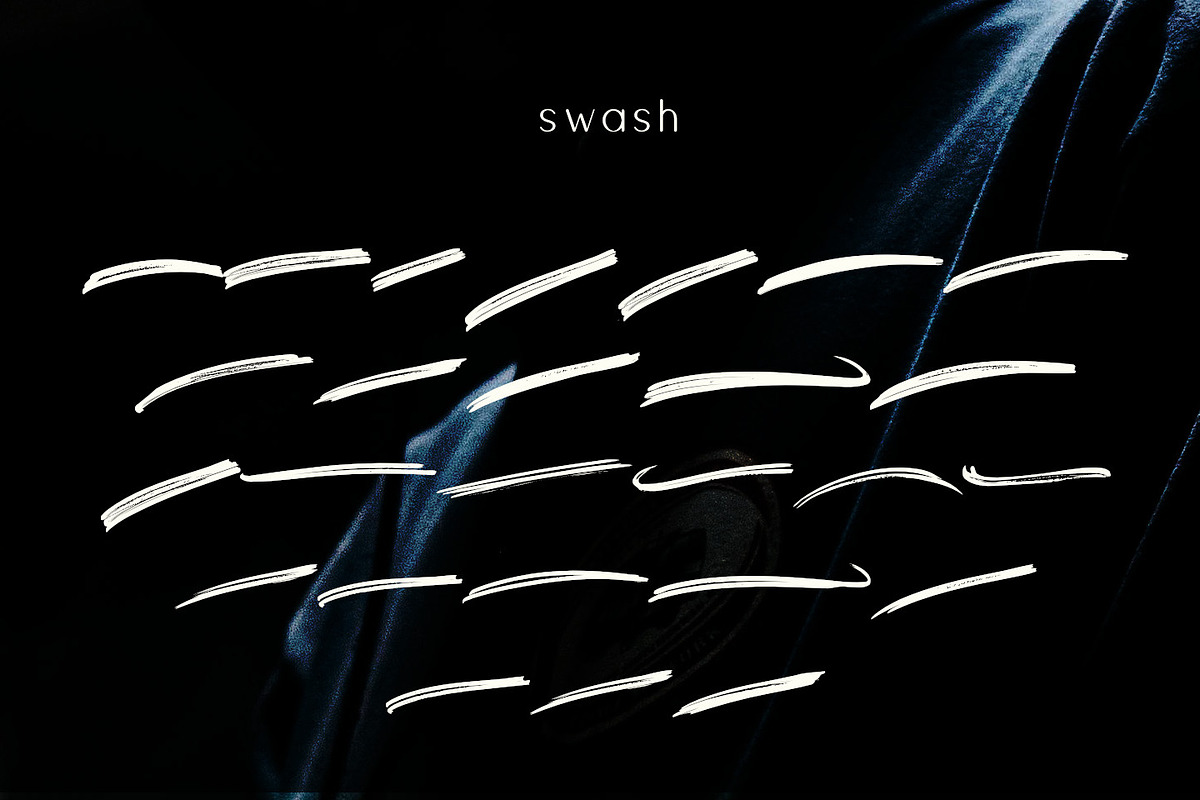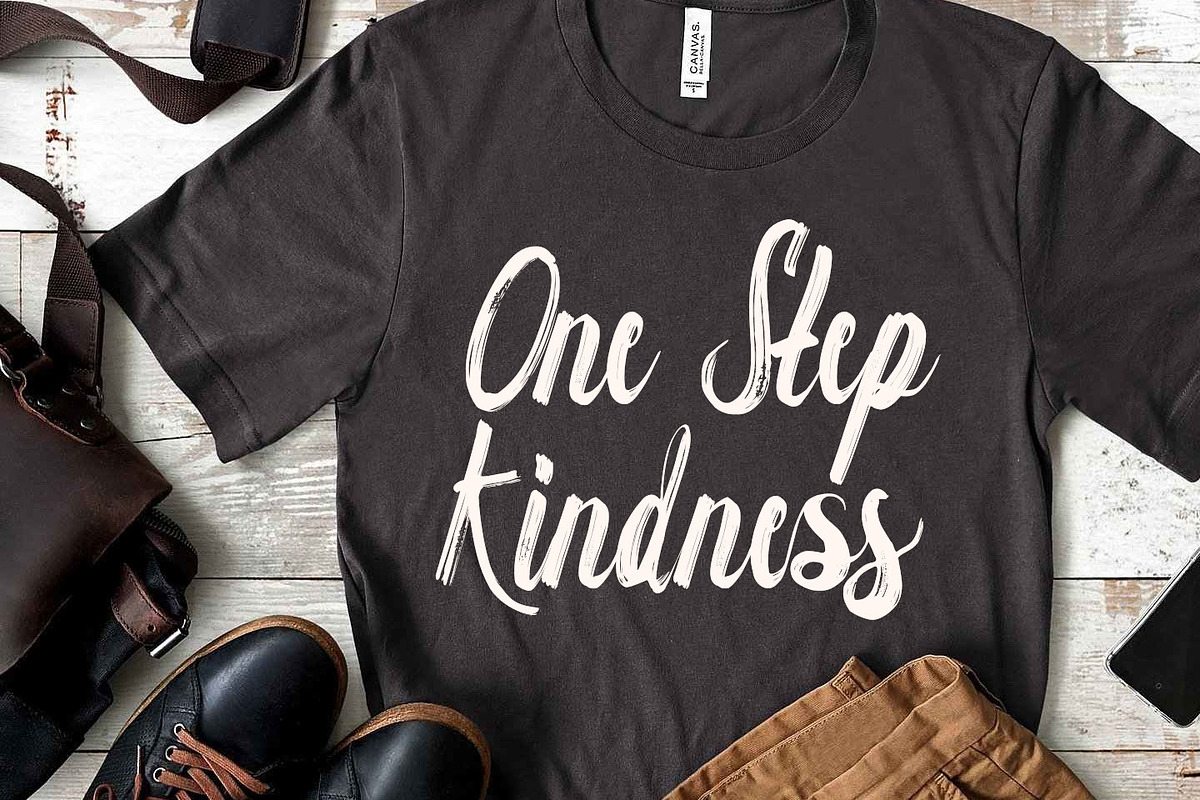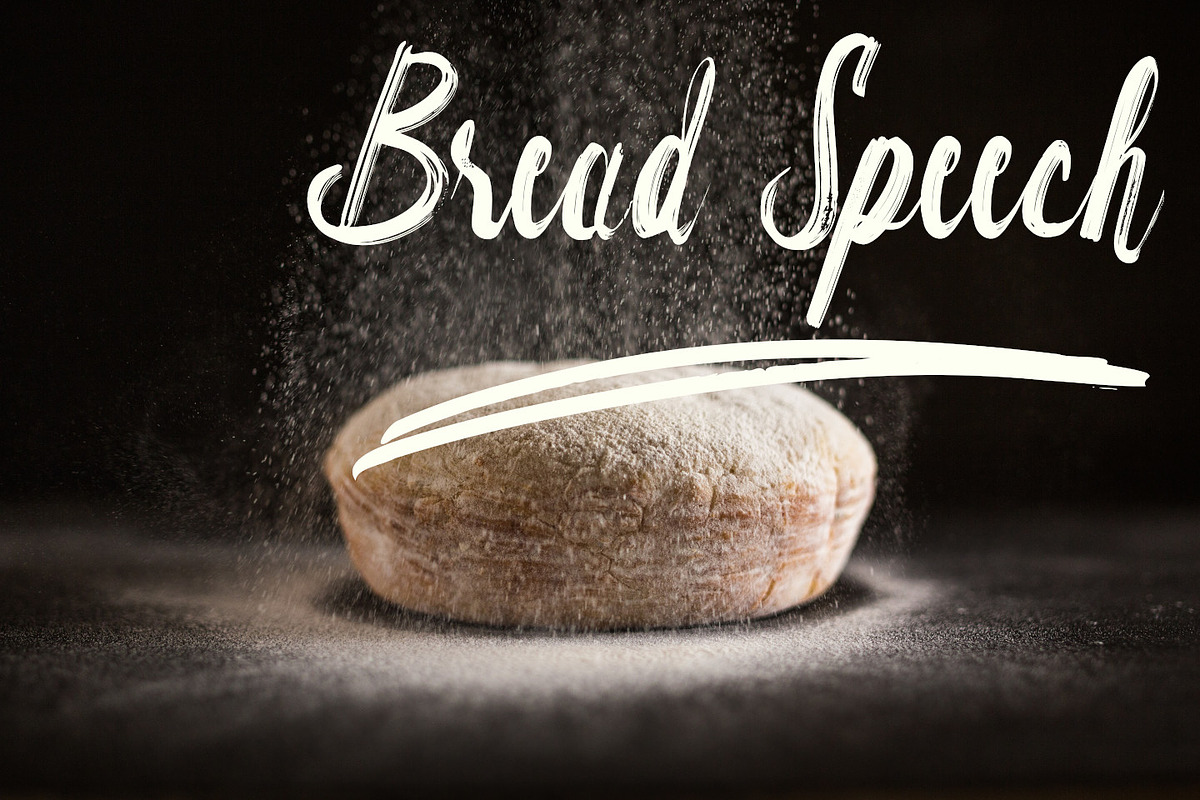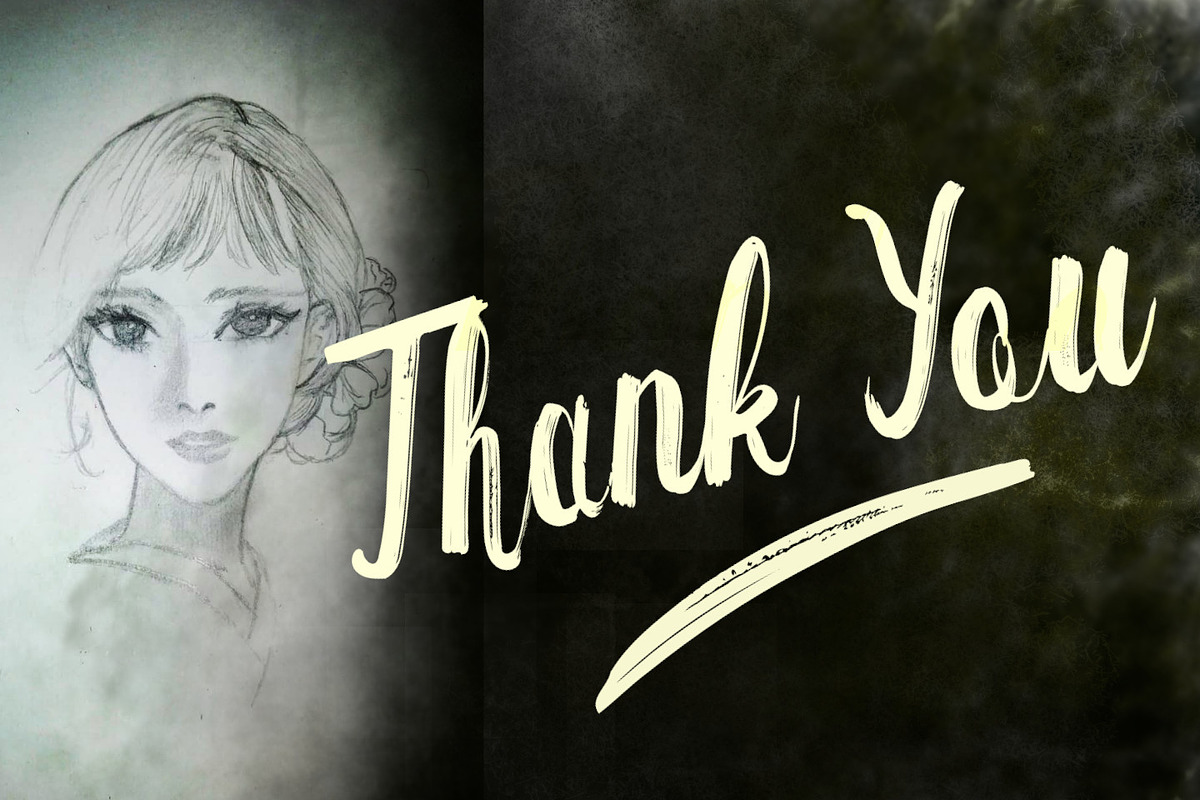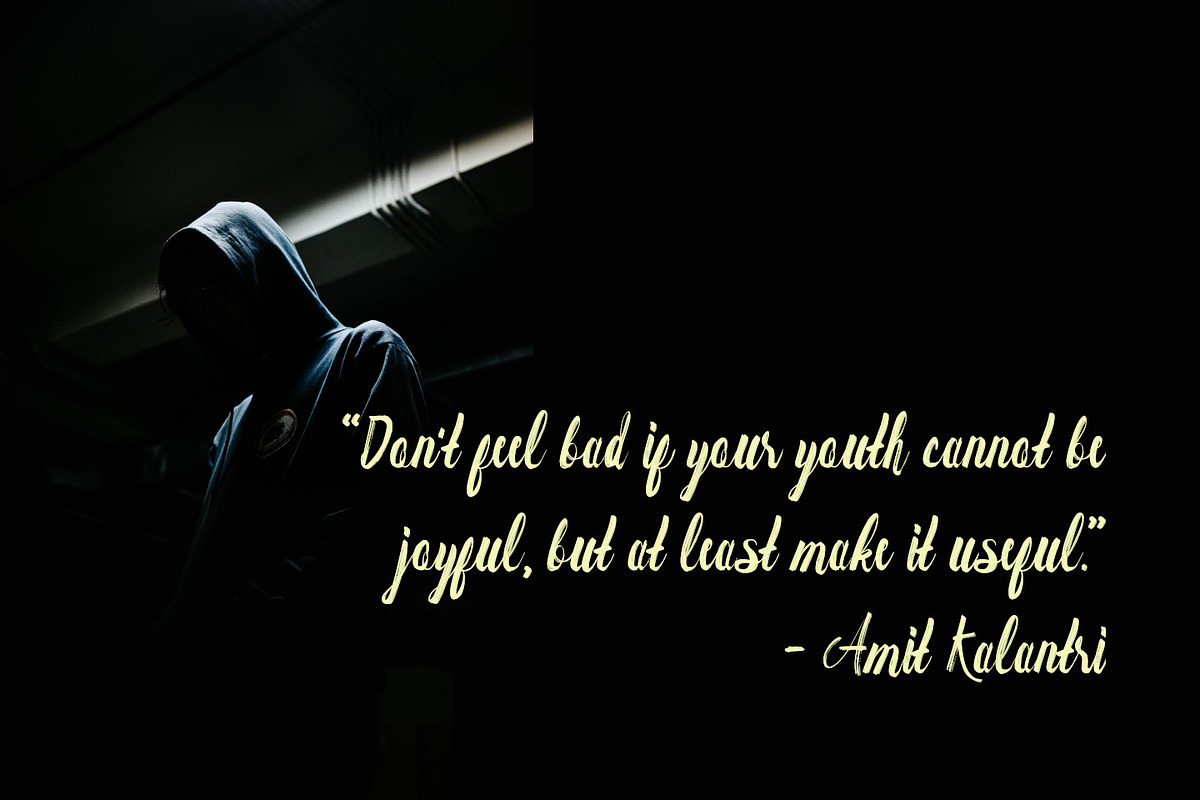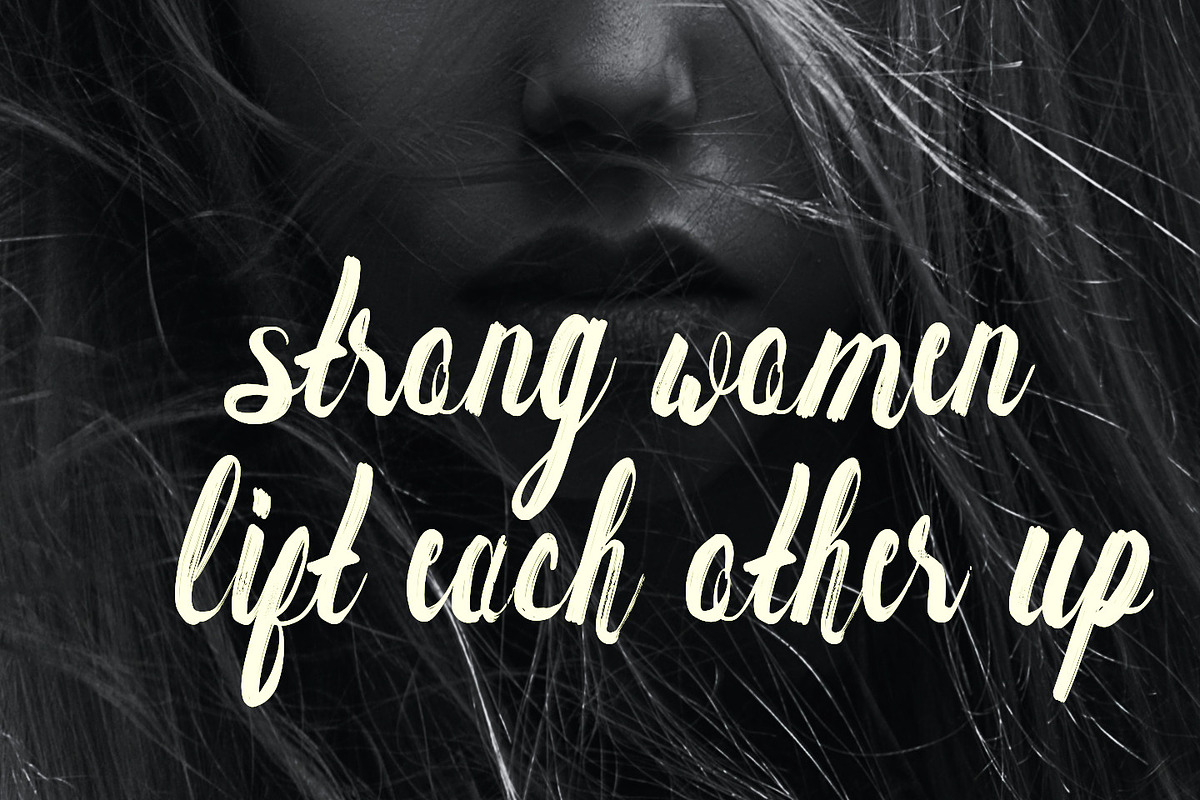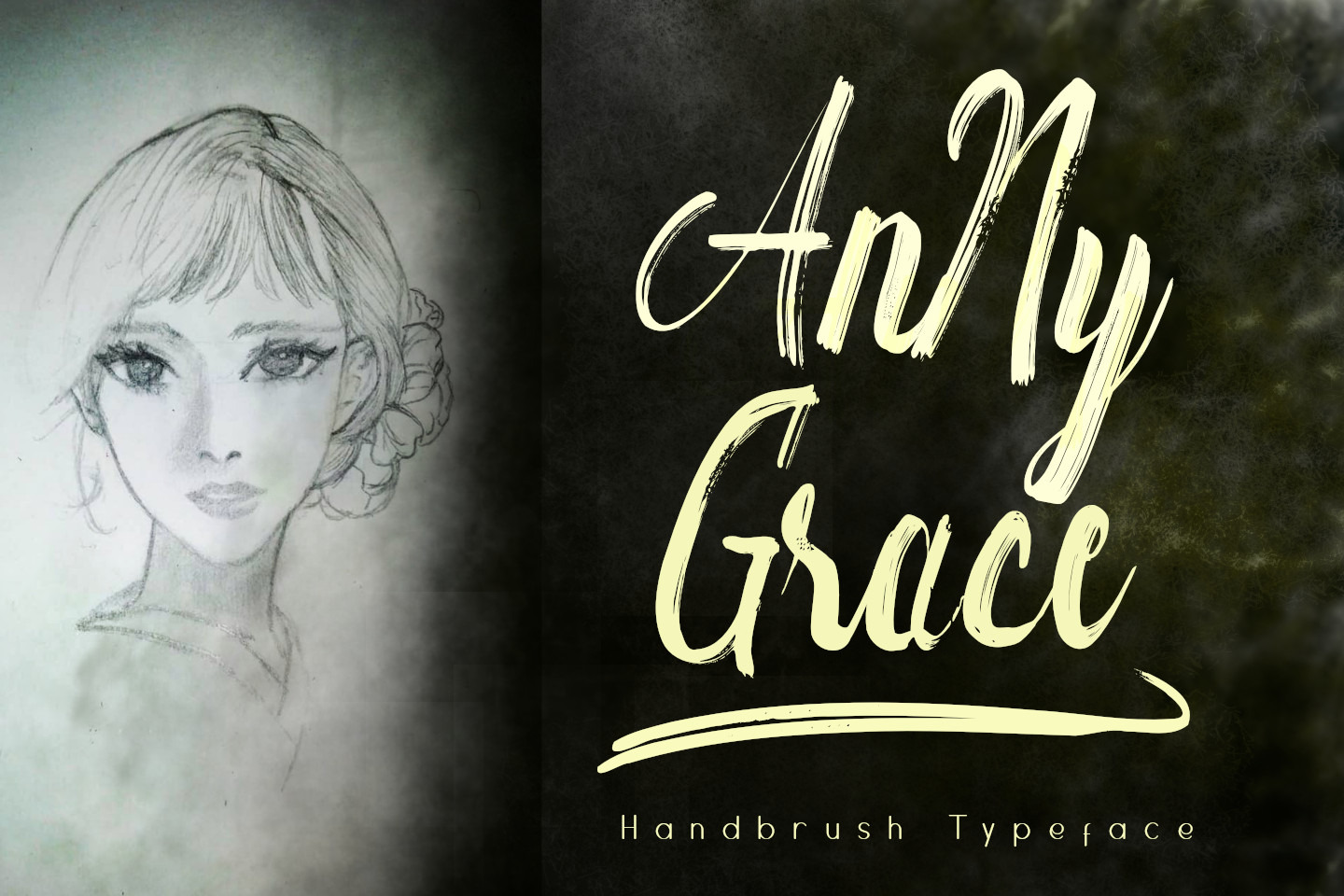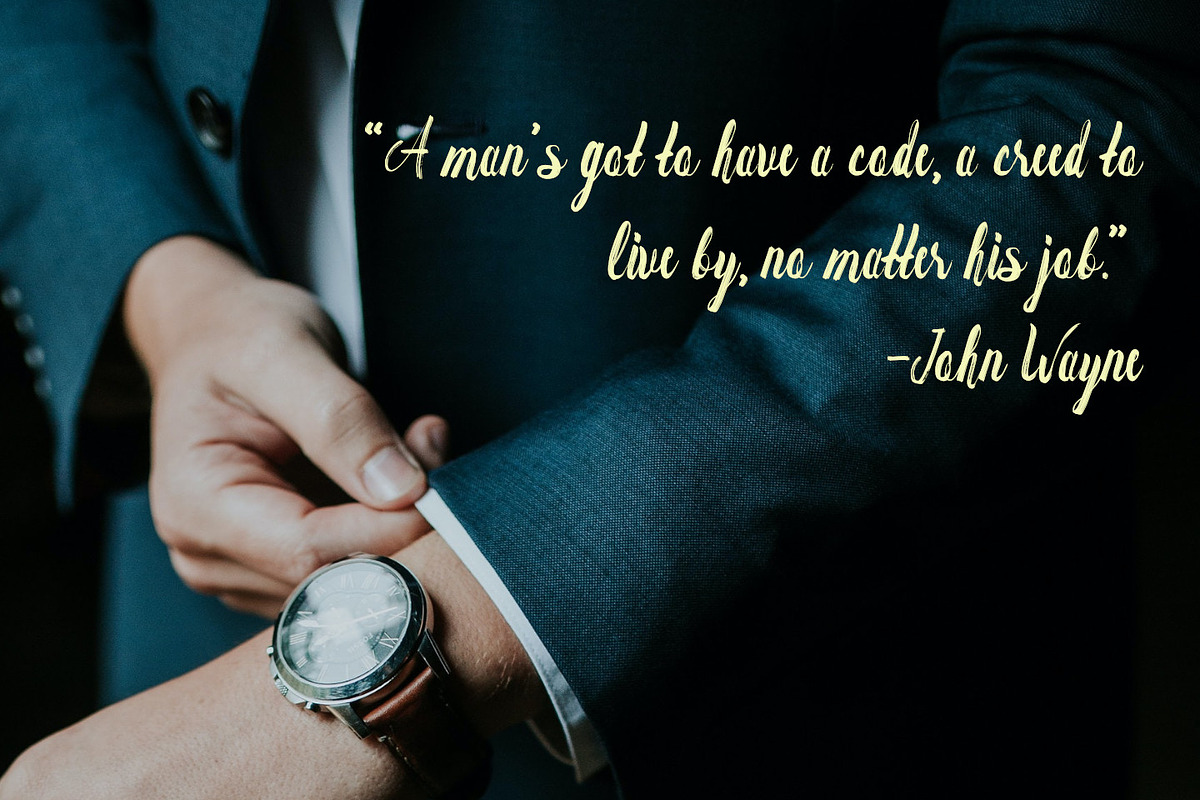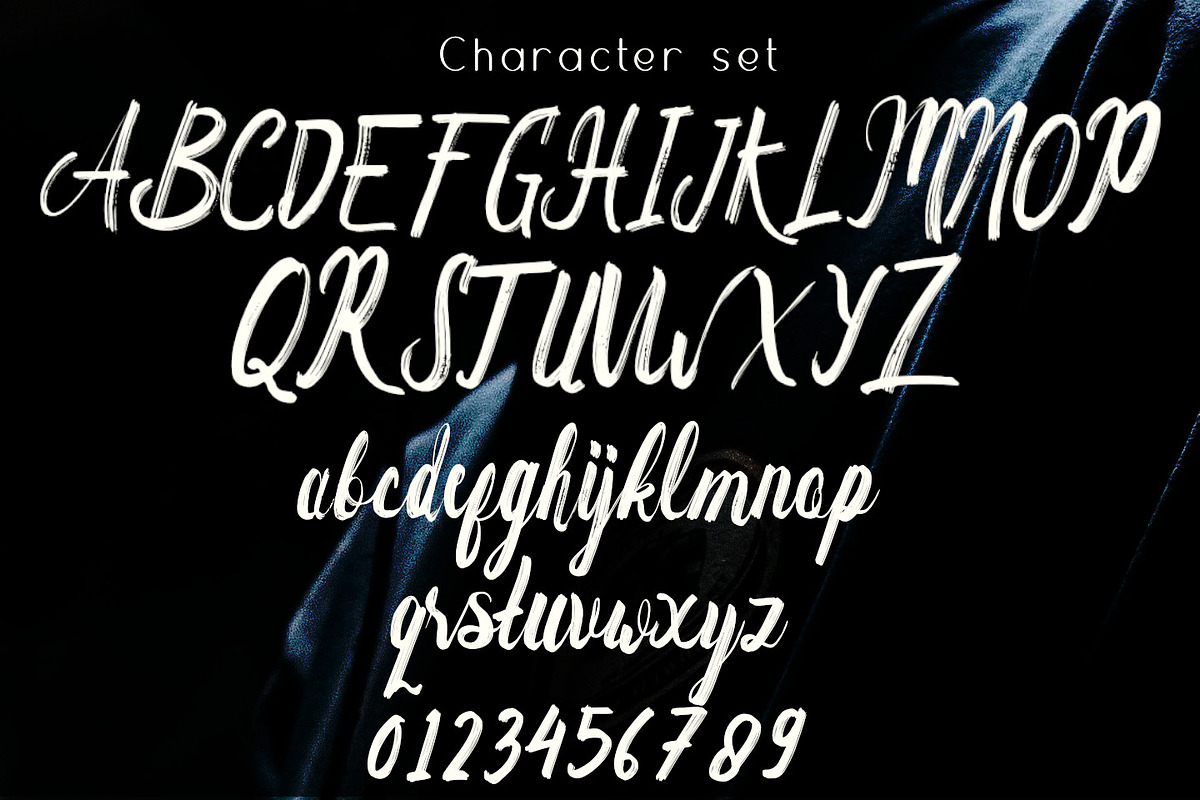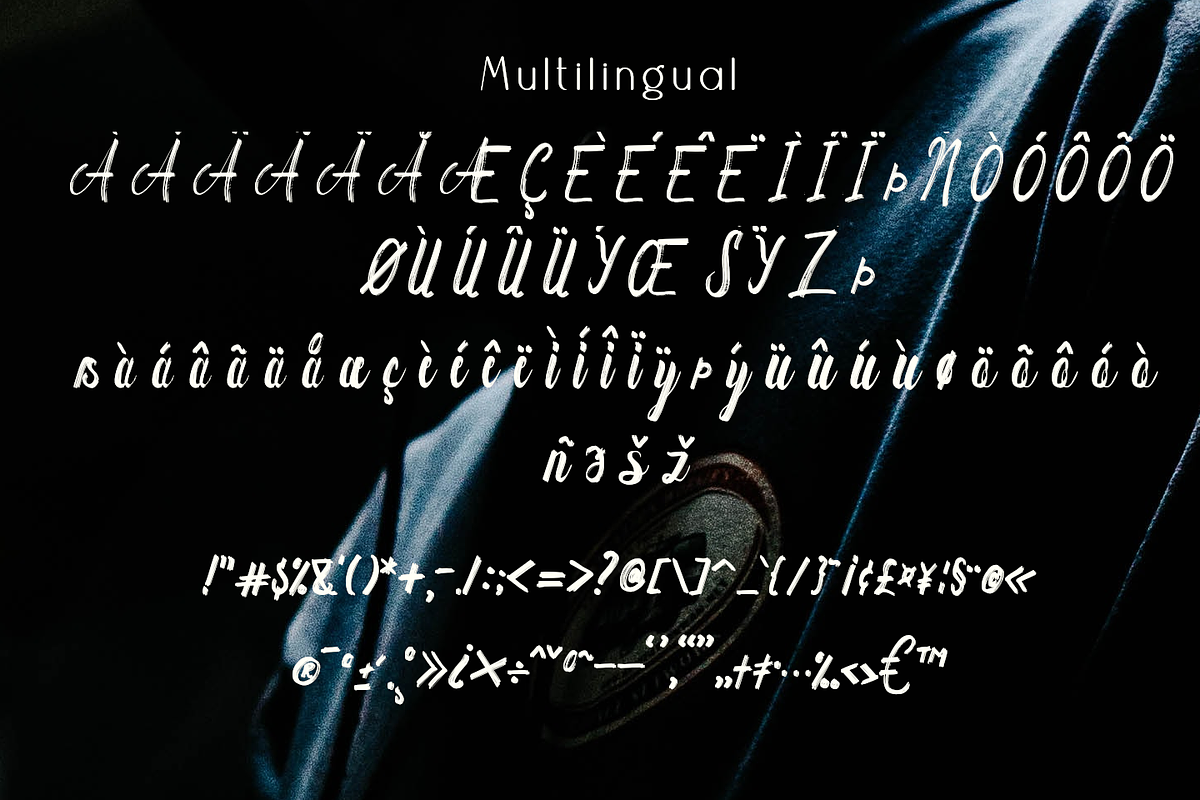
Anny Grace Hand brush Typeface
Anny Grace is a textured brush font using a contemporary approach to design. Handmade naturally with an irregular baseline, Amithen is suitable for a number of display or decorative designs.